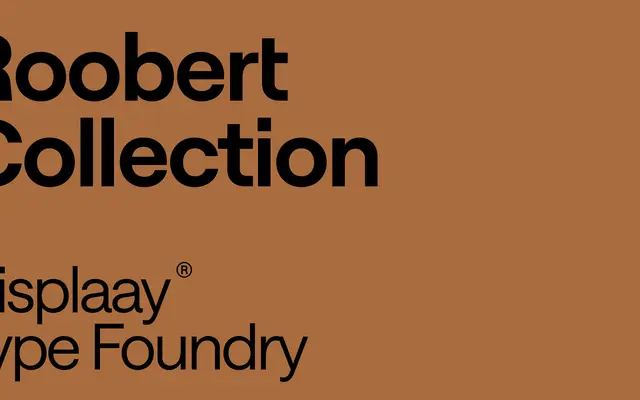
A geometric sans from Displaay Type Foundry with broad language coverage and a friendly, contemporary character.
Roobert is a geometric sans-serif designed for both display and text settings, with open apertures and a warm disposition that keeps it readable across sizes. The family covers Latin, Cyrillic and Greek scripts, making it a practical choice for multilingual projects. Its clean construction suits branding and interface work without veering into the severity of stricter geometric designs.
Roobert is a geometric sans-serif with friendly, rounded characteristics typical of the genre, positioned for both display and text use.